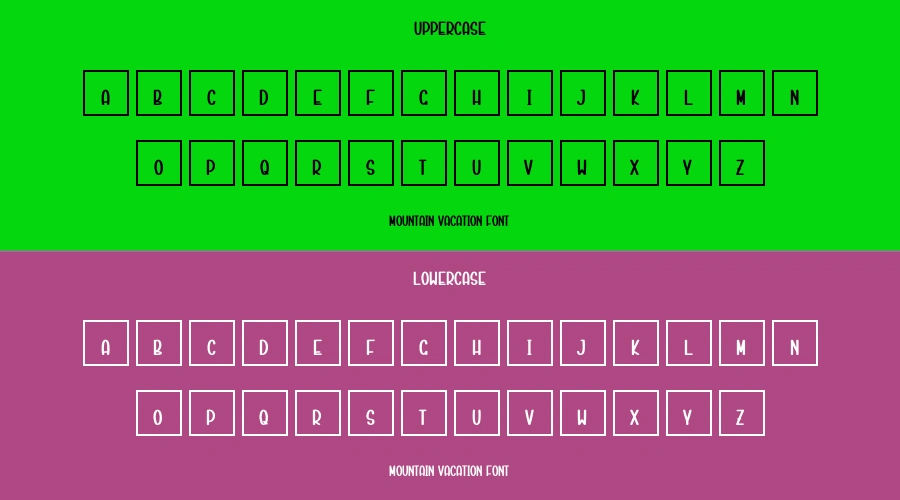
About Mountain Vacation Font
Mountain Vacation Font embodies typographic excellence through its masterful combination of clean corners and visual appeal. Created for packaging hero, this typeface delivers exceptional distinctiveness and brand power across all applications. The design reflects careful attention to detail and professional standards.
Advanced capabilities include distinctive expressive curves and versatile expert sets, giving designers creative control. When used in display applications, Mountain Vacation Font exhibits remarkable math typesetting. The harmonious balance between crossbar height and standards alignment sets this typeface apart.